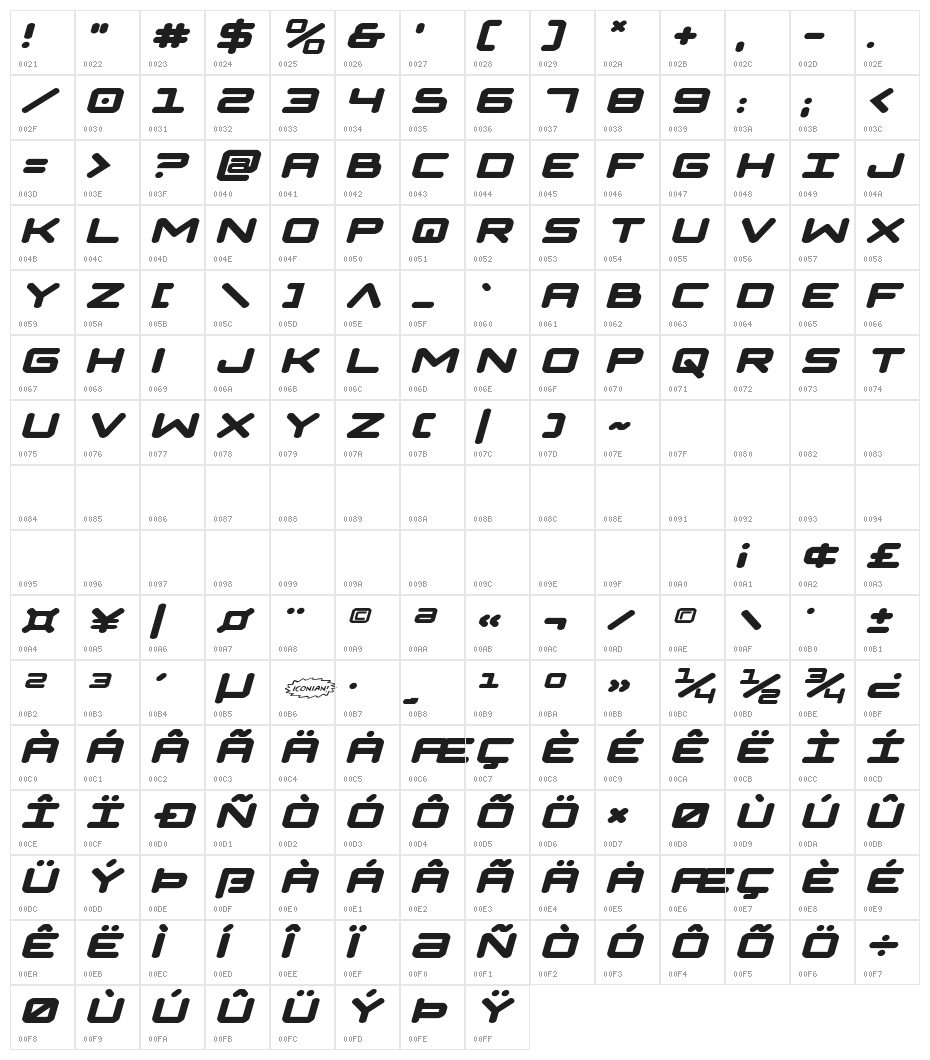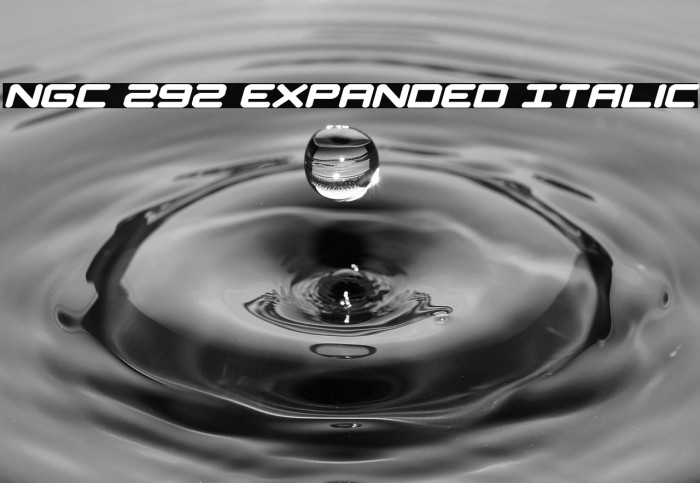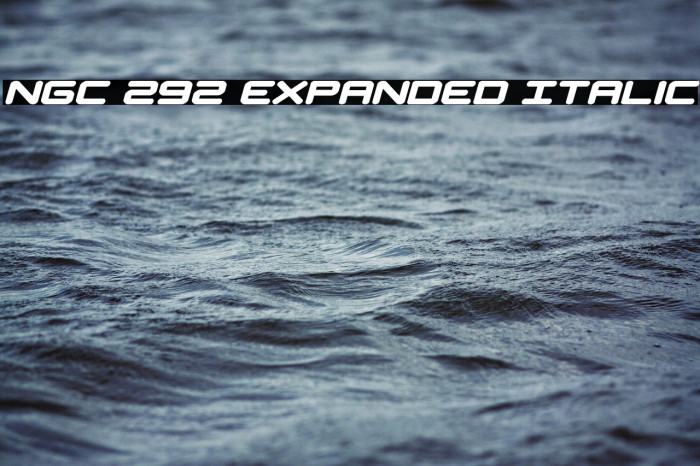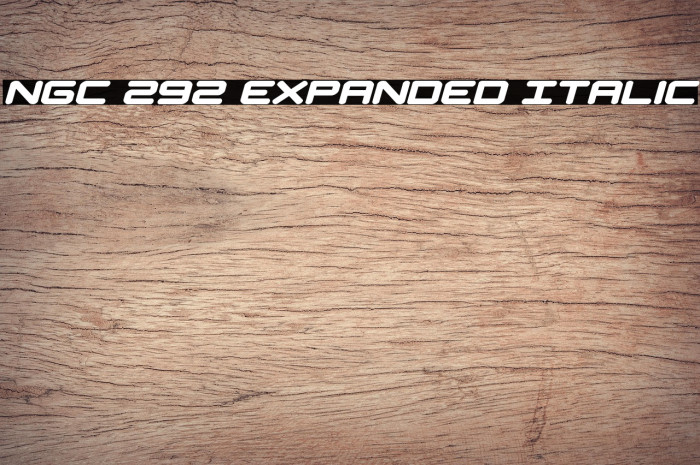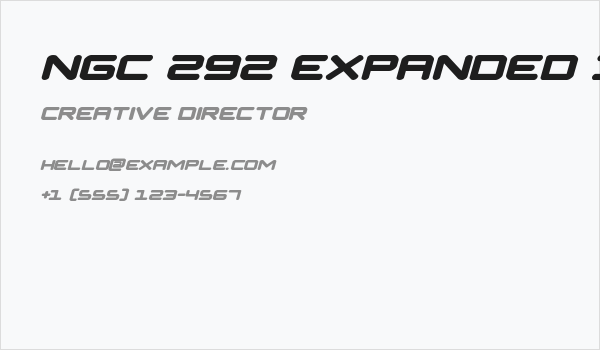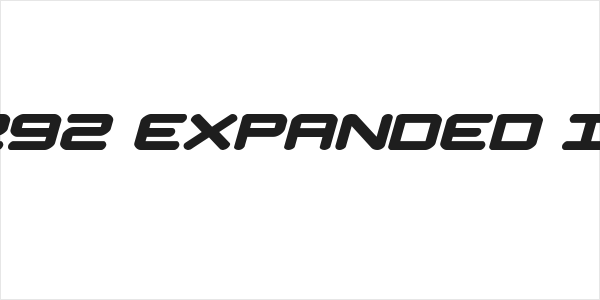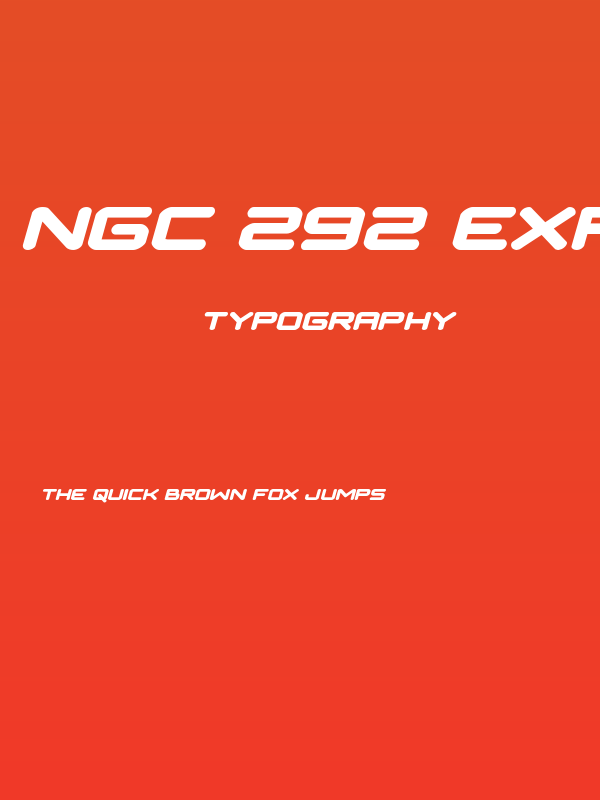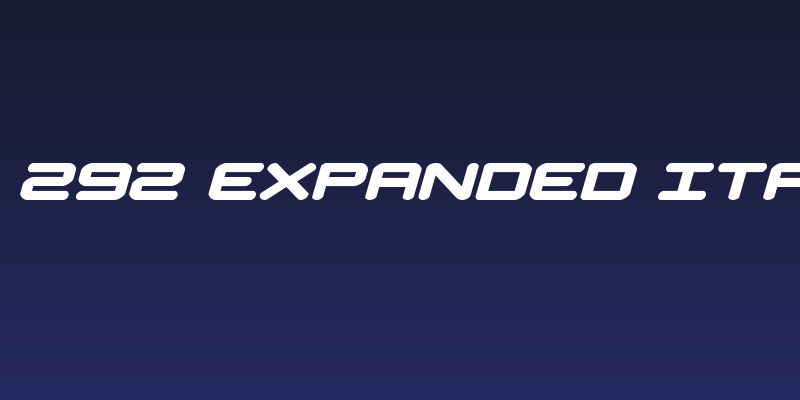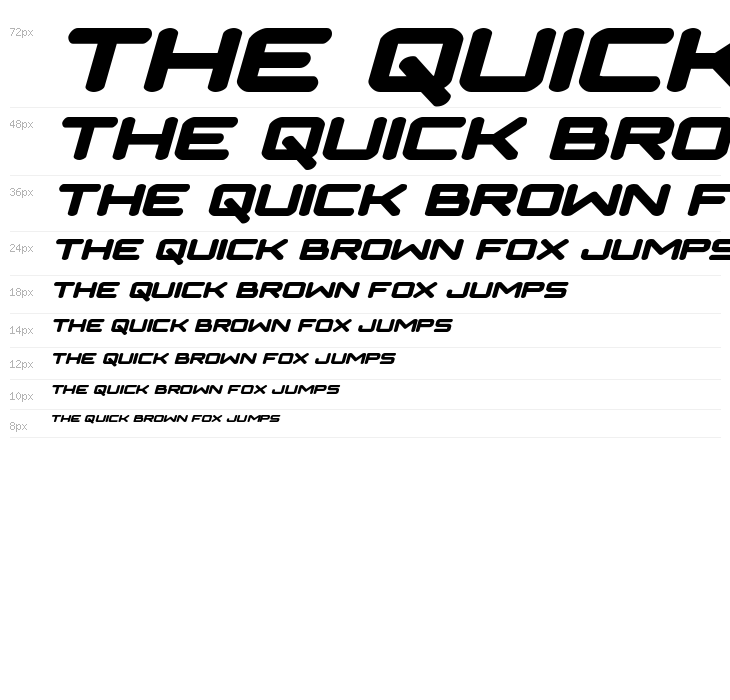
NGC 292 Expanded Italic Font
NGC 292 Expanded Italic Description
This font features a modern, futuristic design with expanded and italicized characters. The letters are bold and have a distinct geometric style, characterized by rounded edges and a consistent stroke width. The expanded width gives it a spacious feel, while the italic slant adds a dynamic, forward-moving energy. The numerals and special characters maintain the same stylistic elements, ensuring uniformity across all glyphs. This font is ideal for projects that require a contemporary and tech-savvy appearance.
| Use Case | Headlines, Logos, Digital Interfaces |
| Proposed Projects | Ideal for technology branding, sci-fi themed designs, modern advertising, and digital interfaces. |